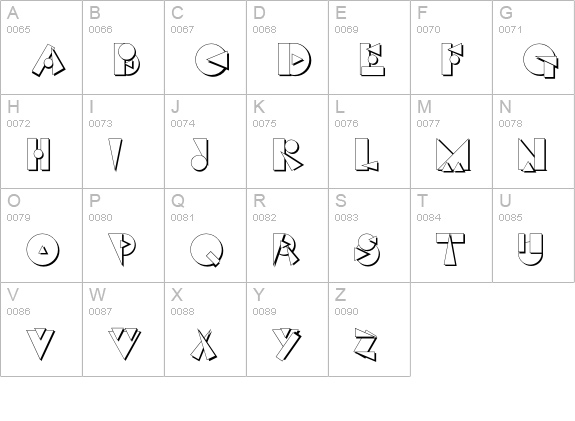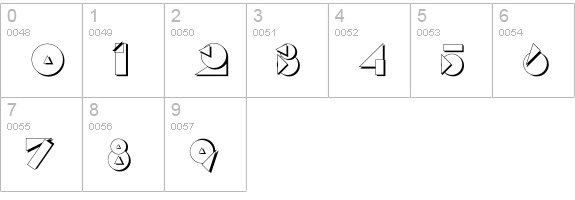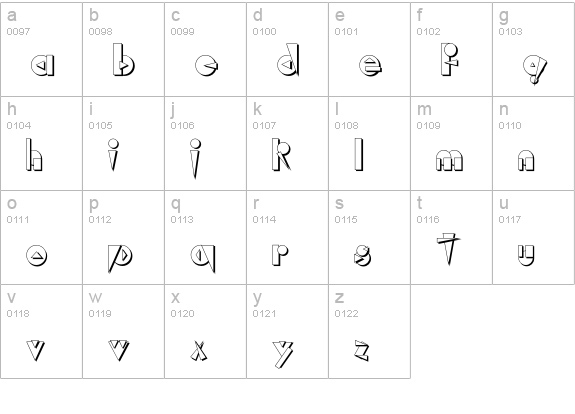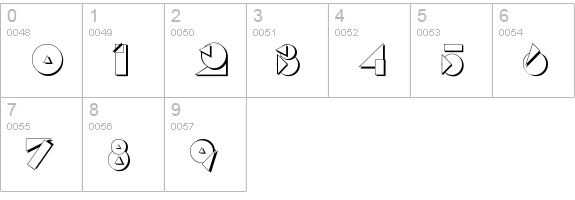
RockABillyICG Font Details
RockABillyICG font is a lively and vibrant typeface that exudes retro charm and vintage flair. With its bold strokes and playful curves, this font captures the essence of the rockabilly era with a modern twist. Perfect for adding a fun and edgy touch to your designs, RockABillyICG font is ideal for posters, album covers, logos, and more. The best part is that RockABillyICG font is completely free to download at FontsMarket.com. So you can add this unique and eye-catching font to your collection without any cost. Don't miss out on the opportunity to enhance your designs with the energetic and dynamic style of RockABillyICG font. Download it now and let your creativity shine!